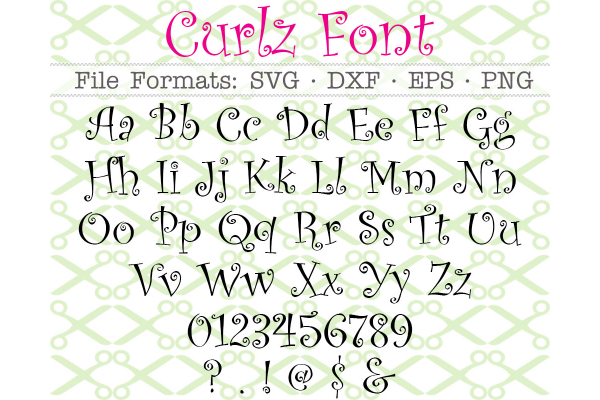
CURLZ FONT SVG FILES, In File Formats SVG, DXF, EPS & PNG. Upper & lower case letters, numbers & symbols as shown in ad picture. This is a cute whimsical font great for kids crafts.